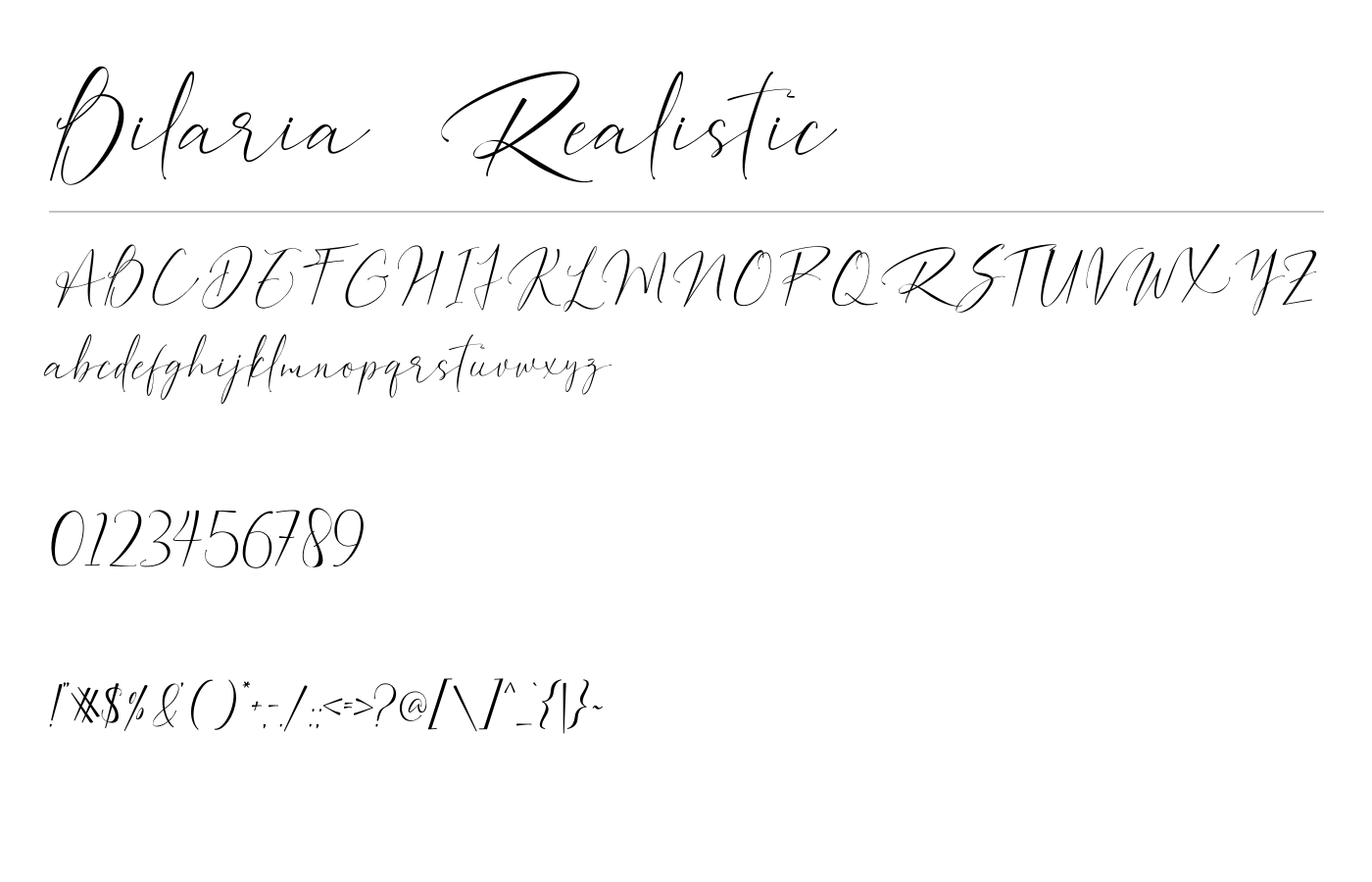
Bilaria Realistic is an elegant, delicate script font with slender, flowing lines that mimic natural handwriting, giving it a refined and graceful appearance. Its light weight and airy spacing make it ideal for sophisticated branding, invitations, and stylish editorial designs where a personal, luxurious touch is desired. This font works best in large sizes for headlines or logos to showcase its intricate letterforms and charming flair.
Bilaria Realistic Font
About Bilaria Realistic Font
| Font family | Bilaria Realistic Font |
| Designer | ABDUL GHOFUR |